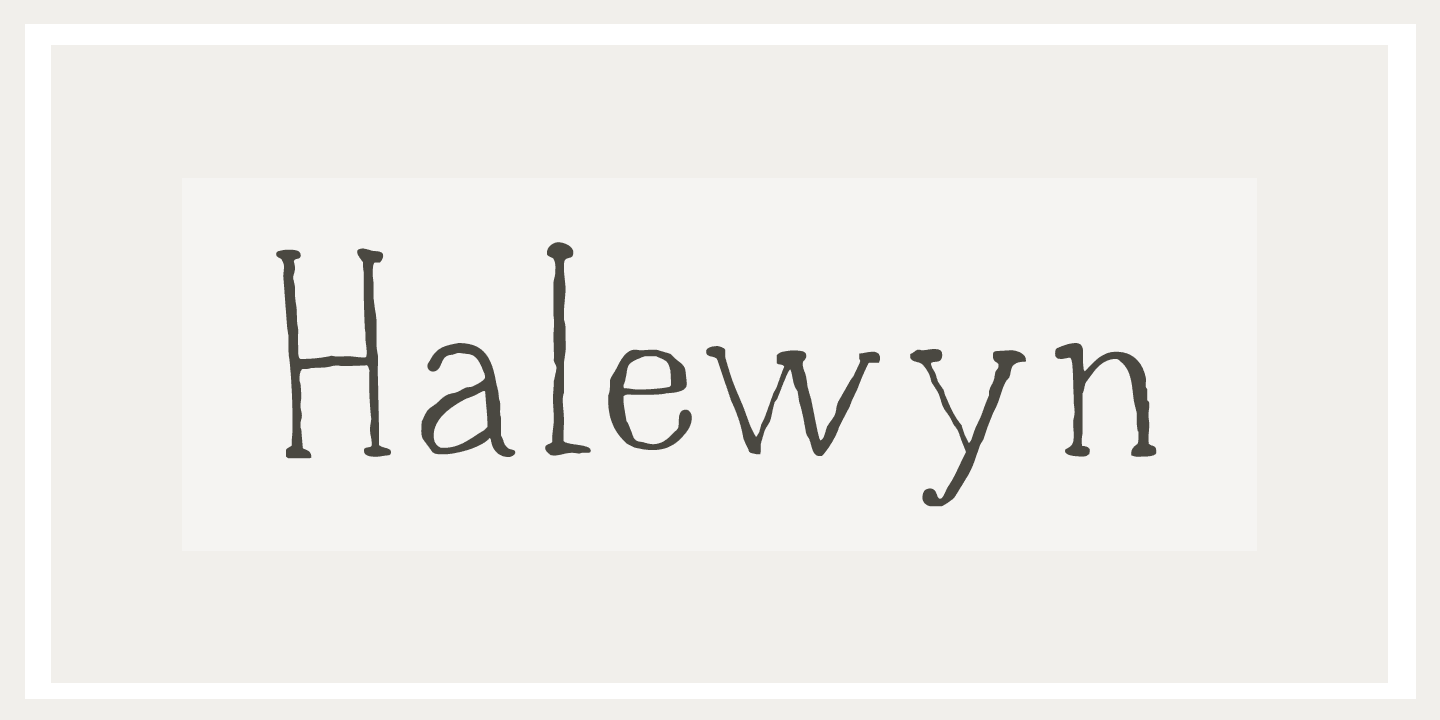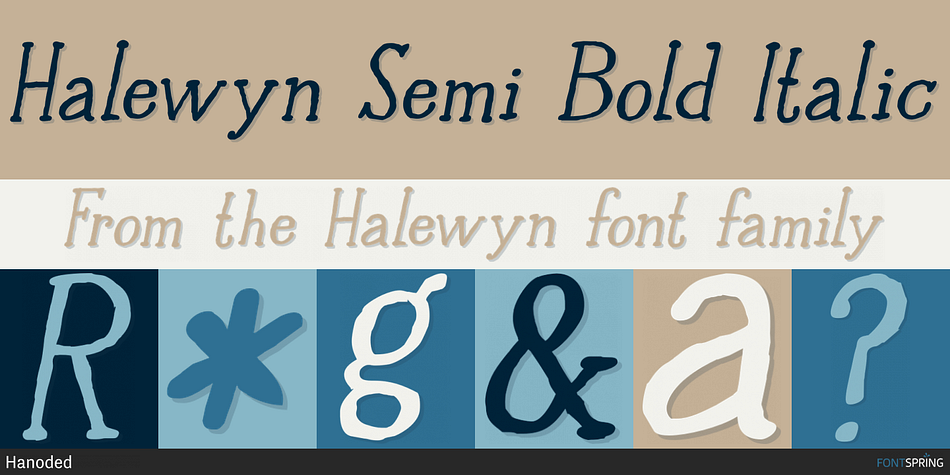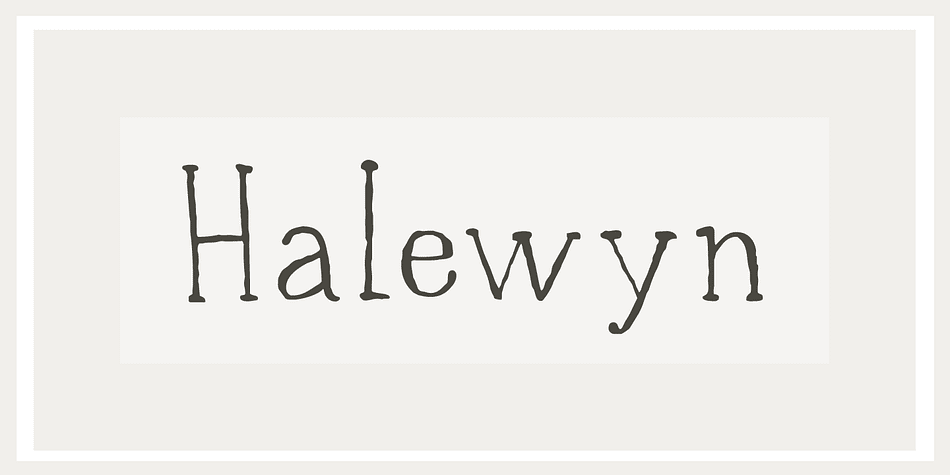
Halewyn Semi Bold Italic
Halewyn is a hand display and kids font family. This typeface has eight styles and was published by Hanoded.
Heer Halewijn (The Song of Lord Halewijn) is a 13th-century Dutch folk tale which survives in a folk ballad. The story tells of a man called Halewijn, who lives in the woods and who lures pretty women with his songs (whom he then kills). One day a princess visits Halewijn, but when he wants to kill her, she requests he remove his robe, so as not to stain it with her blood. He obliges and when he is undressing, the princess seizes his sword and chops off his head.
Halewyn is a handmade font, which was loosely based on my Languedoc font and Garamond. Use it for product packaging, books, and posters. Comes in 4 weights (with italics) and a ballad full of diacritics.